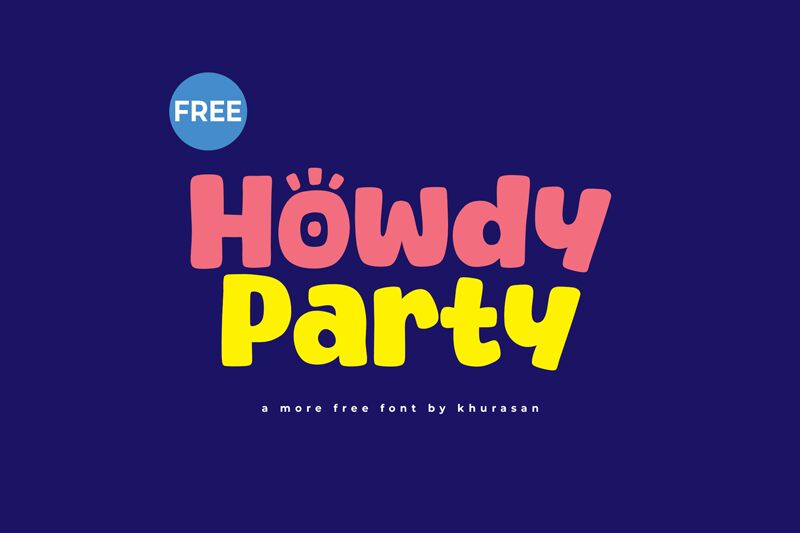
Howdy Party
Howdy Party font by Khurasan is a bold display cartoon-styled playful free font with exaggerated forms. It is a special font for any design craving funky horsy vibes. The unusual letter shapes and boldness immediately stand out, making whatever you write eye-catching and easy to read.
Use it on invitations, product packaging designs, posters, invitations, food packages, video titles, YouTube thumbnails, website headlines or paragraphs. Its rounded shapes and fun aura will also work great in magazine covers/contents, apps as well as logos and branding displays.